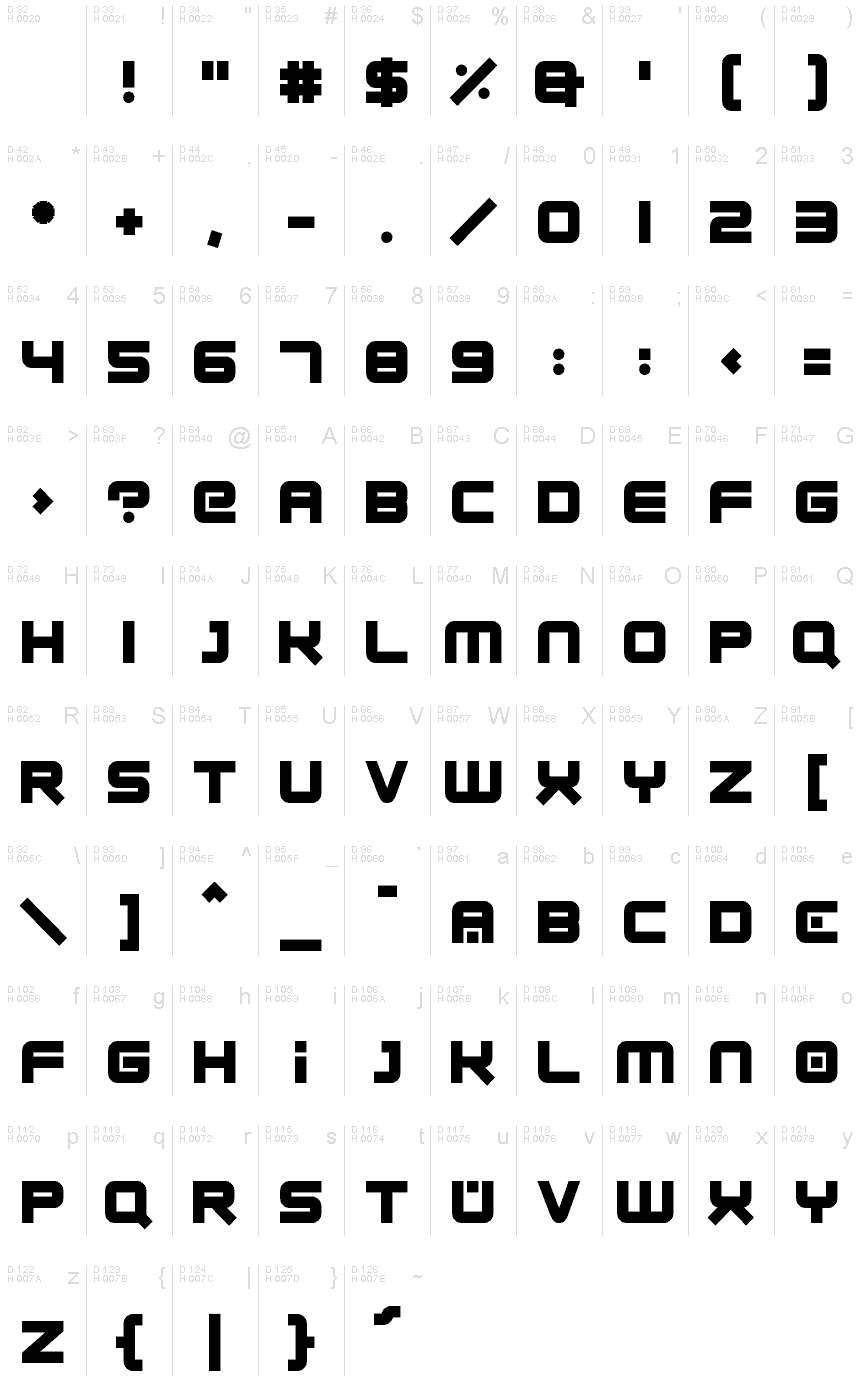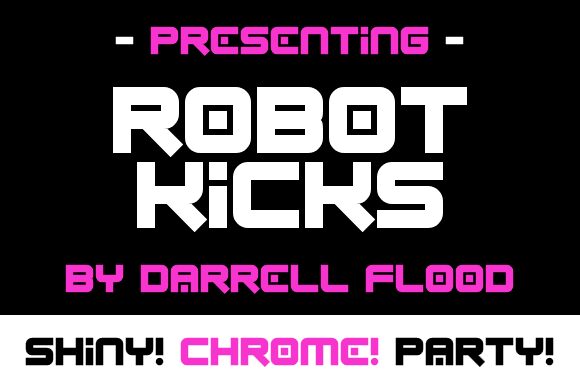
Robot Kicks
Robot Kicks font by Hawtpixel is a futuristic, bold, expanded, display typeface that offers an industrial and tech-inspired touch to your designs. Clean geometric forms and structured characters give it a modern appeal whether used on screen or in print.
Possible use cases are video games, labels, packaging, apps and websites interfaces; robotics-styled logos; music albums covers related to electronic genres; stationery, posters or magazines designs.